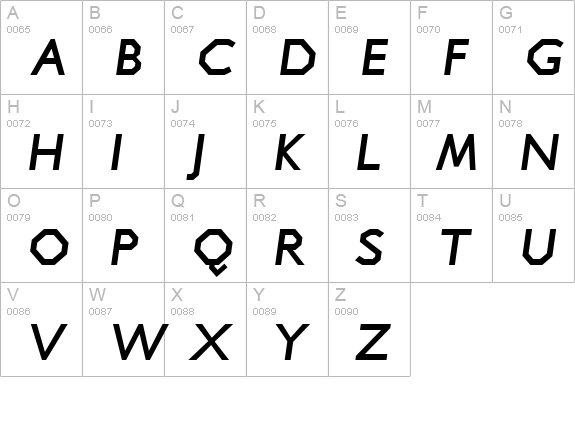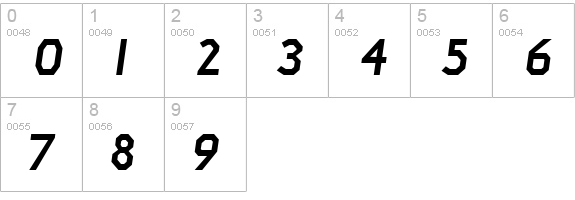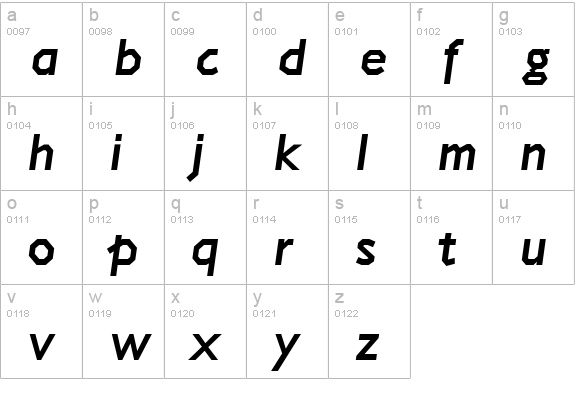
Jillican Heavy Italic is a heavy, high-impact, italic variant in the Jillican typeface family \xE2\x80\x94 well suited to high-impact headlines, posters, and display advertising.
Introducing Jillican Heavy Italic font, a bold and dynamic typeface that exudes strength and character. This eye-catching font features thick, slanted strokes that give your text a powerful and assertive appearance. Perfect for headlines, logos, posters, and other design projects that call for a strong and impactful look. Jillican Heavy Italic font is designed with precision and attention to detail, making it a versatile choice for a wide range of applications. Whether you're looking to make a statement or add a touch of elegance to your designs, this font has you covered. Best of all, Jillican Heavy Italic font is available for free download at FontsMarket.com. Now you can add this impressive typeface to your collection without breaking the bank. Don't miss out on the opportunity to elevate your designs with the bold and striking Jillican Heavy Italic font. Download it today and unleash your creativity!